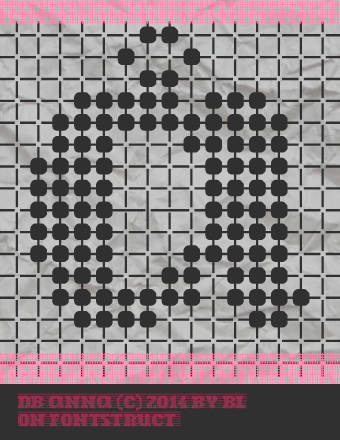
db Anna
beate
Dot Matrix
Unicase
I love this font! Keep on running!
The apparent simplicity of this design is deceptive - a lot of work has gone into this beauty.
I love the fact that you combined that grid structure with a typical beate-touch letterform. And also that it works in both the big and small examples.
Oh thank you laynecom, but i am not sure about the grid. Maybe it's a bit to small – I still experimenting.
I think it's perfect. But still, keep on experimenting - it's our pleasure.
Amazing as always! Wow I like how you make that grids...